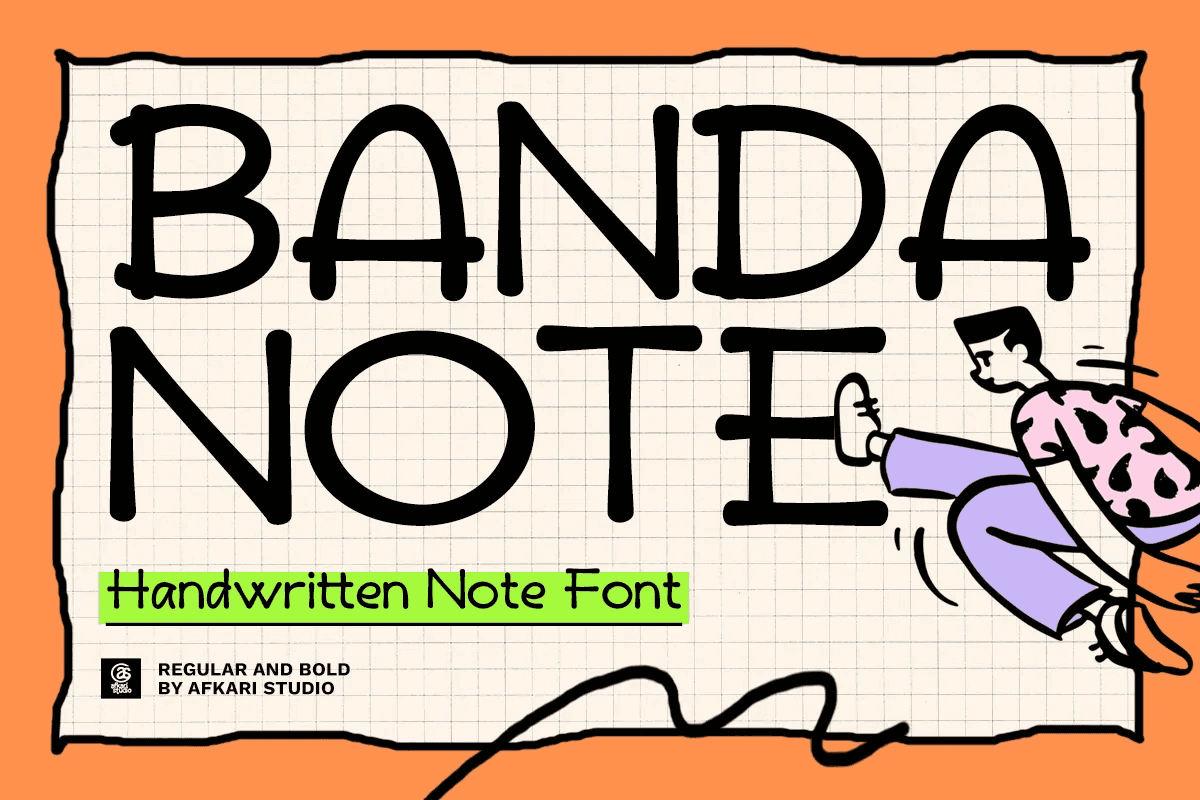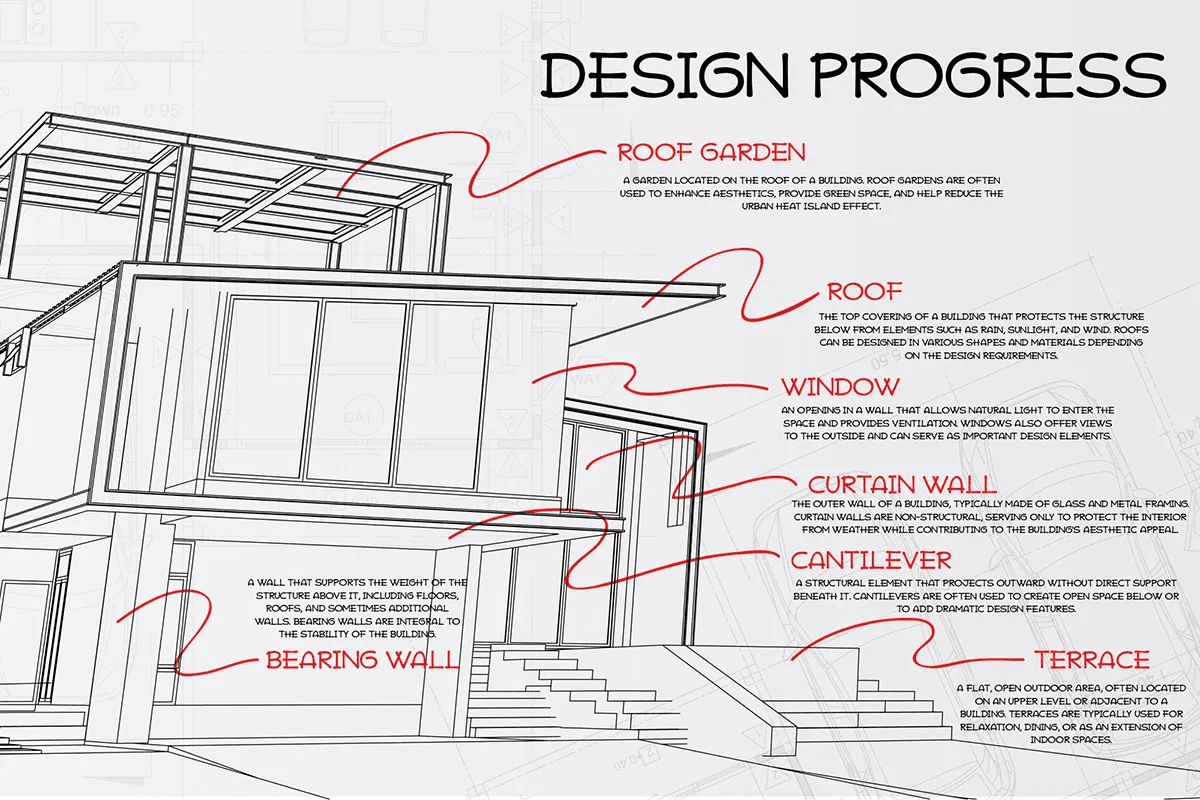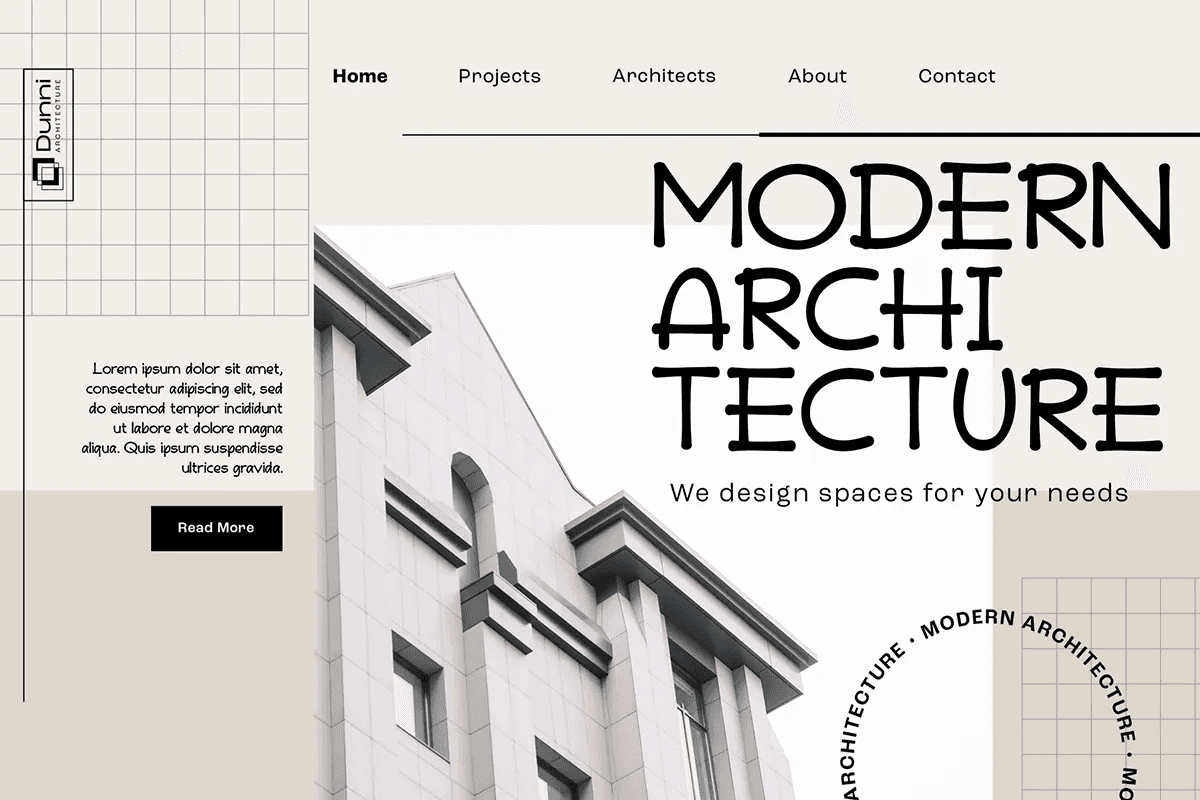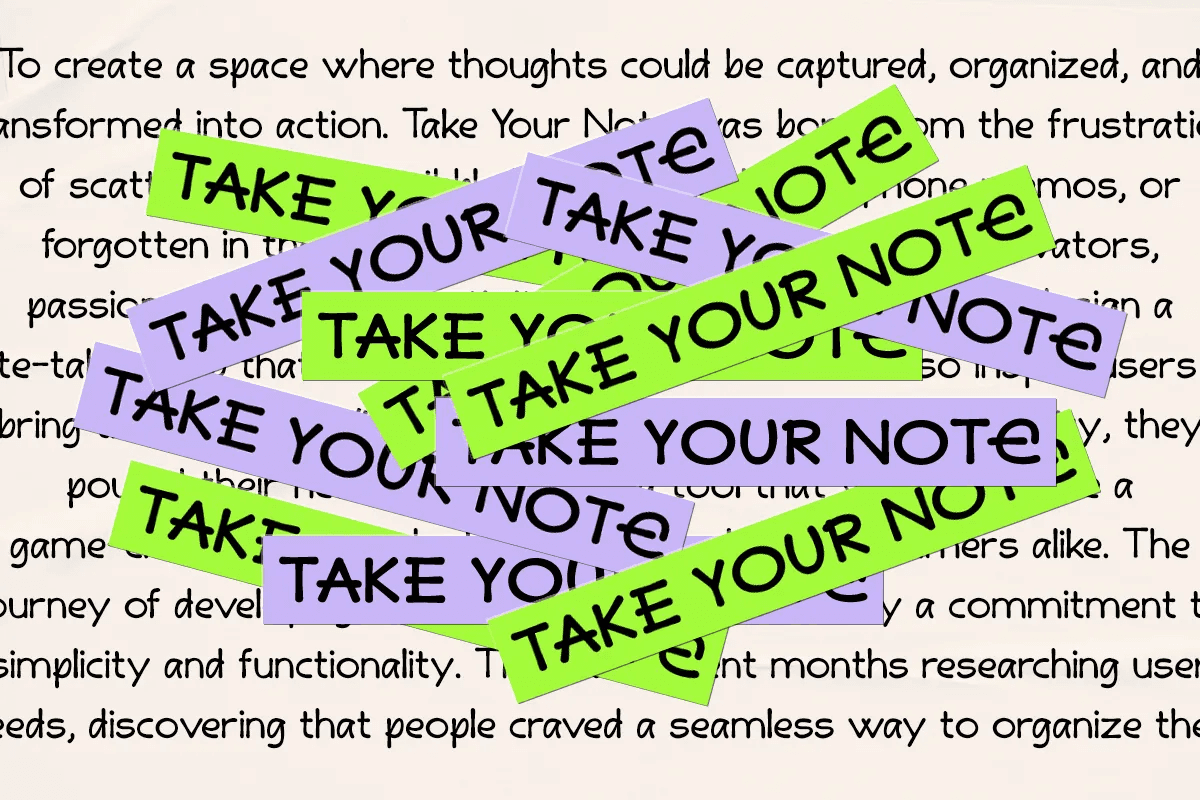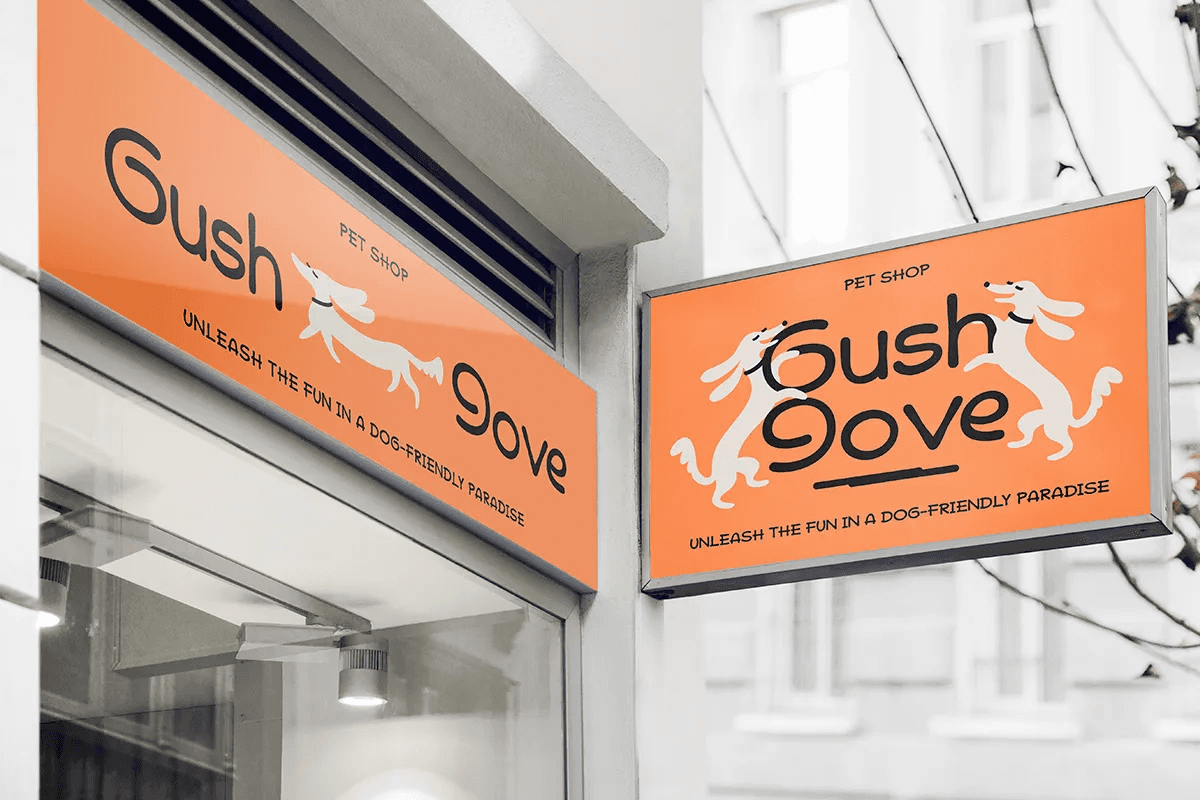
Banda Note – Handwritten Font is a casual and expressive handwritten font that replicates the natural flow of marker handwriting. Designed for authenticity and versatility, this font comes in Regular and Bold styles, allowing you to switch between a relaxed, personal touch and a stronger, more impactful look. Whether you’re designing notes, journals, branding, or digital content, Banda Note brings warmth and personality to your work.